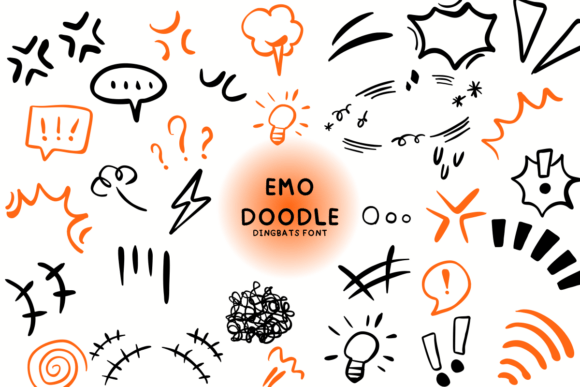
Unleash Your Creativity with Emo Doodle Font: A Whimsical Dingbats Font
Are you looking for a font that can add a touch of playfulness and sophistication to your creative projects? Look no further than the Emo Doodle font, a unique Dingbats font rendered in an enchanting sketch style. This font is designed to spark ingenuity and infuse a dose of whimsy into every project, making it perfect for a wide range of creative pursuits.
What is Emo Doodle Font?
The Emo Doodle font is a singular Dingbats font that features a playful and charming sketch style. Its unique design makes it stand out from other fonts, and its versatility allows it to be used in a variety of creative projects. Whether you’re looking to create invitations, craft DIY projects, or design lavish decorations, the Emo Doodle font is the perfect choice.
The Benefits of Using Emo Doodle Font
The Emo Doodle font offers a range of benefits for creative professionals and hobbyists alike. Some of the key benefits include:
- Spark Ingenuity: The Emo Doodle font is designed to spark ingenuity and inspire creativity. Its playful aesthetic encourages users to think outside the box and come up with innovative ideas.
- Add a Touch of Whimsy: The Emo Doodle font adds a touch of whimsy to every project, making it perfect for creative pursuits that require a bit of personality.
- Effortless Sophistication: Despite its playful nature, the Emo Doodle font effortlessly adds a touch of sophistication to any project, making it perfect for a wide range of creative applications.
Creative Uses for Emo Doodle Font
The Emo Doodle font is a versatile font that can be used in a wide range of creative projects. Some of the most popular uses for the font include:
- Invitations: The Emo Doodle font is perfect for creating invitations for parties, weddings, and other special events.
- Crafting: The font’s playful aesthetic makes it perfect for crafting projects, such as scrapbooking and card making.
- DIY Endeavors: The Emo Doodle font is a great choice for DIY projects, such as creating signs, banners, and other decorative items.
- Lavish Decorations: The font’s sophisticated touch makes it perfect for creating lavish decorations for special events and parties.
- Logo Creation: The Emo Doodle font can be used to create unique and eye-catching logos for businesses and brands.
The Emo Doodle font is a unique and versatile font that is perfect for a wide range of creative pursuits. Its playful aesthetic and sophisticated touch make it a great choice for invitations, crafting, DIY endeavors, lavish decorations, and logo creation. With its ability to spark ingenuity and add a touch of whimsy to every project, the Emo Doodle font is a must-have for any creative professional or hobbyist.
- What is the Emo Doodle font?: The Emo Doodle font is a singular Dingbats font rendered in an enchanting sketch style.
- What is the Emo Doodle font used for?: The Emo Doodle font can be used for a wide range of creative pursuits, including invitations, crafting, DIY endeavors, lavish decorations, and logo creation.